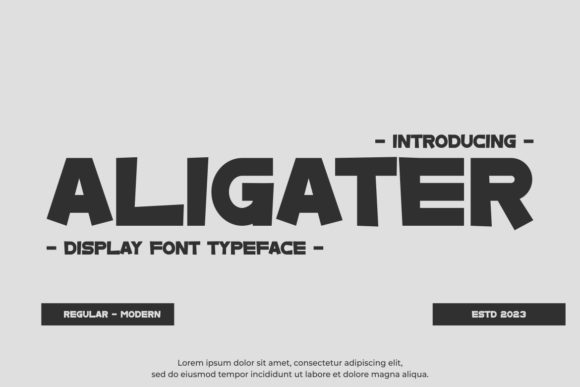
The Ultimate Design Game-Changer: Aligater Font
I’ll never forget the time I was working on a project for a client who needed a bold, modern font to make their brand stand out. I had spent hours scouring the internet for the perfect one, but nothing seemed quite right. That was until I stumbled upon Aligater Font. This cool, bold, and modern display font has been a game-changer for my design work, and I’m excited to share its awesomeness with you! 😊
An Honest Review of Aligater Font
- ✨ Versatility: Aligater Font is perfect for a wide range of projects, from branding and advertising to packaging and digital media.
- ✅ Readability: Despite its bold nature, Aligater Font remains surprisingly readable, even at smaller sizes.
- 💥 Impact: This font makes a statement and is sure to grab attention.
While Aligater Font is an amazing addition to any design project, there are a few things to keep in mind:
- 🤔 Legibility at very small sizes: While Aligater Font is generally readable, it may not be the best choice for body text or very small font sizes.
- ⚠️ Overuse: As with any bold font, it’s easy to overuse Aligater Font. Make sure to balance it with other design elements to avoid visual overload.
The Backstory of Aligater Font
Aligater Font was designed by a team of creatives who wanted to create a bold, modern font that would make a statement. Inspired by the urban jungle, Aligater Font combines sleek lines with a rugged edge, making it perfect for designers who want to add a touch of edginess to their work.
Q: What type of projects is Aligater Font best suited for?
A: Aligater Font is perfect for a wide range of projects, including branding, advertising, packaging, and digital media.
Q: Is Aligater Font easy to read?
A: Despite its bold nature, Aligater Font is surprisingly readable, even at smaller sizes. However, it may not be the best choice for body text or very small font sizes.